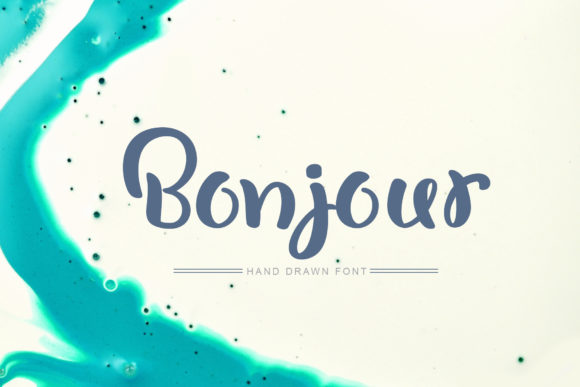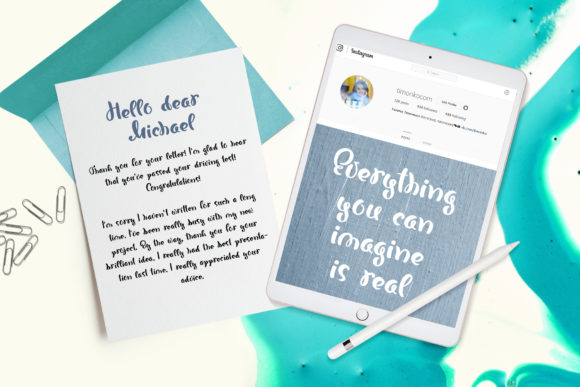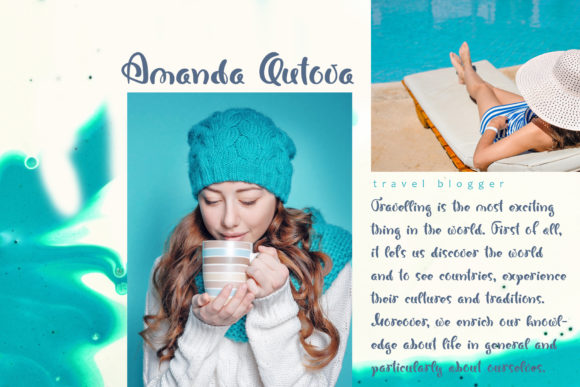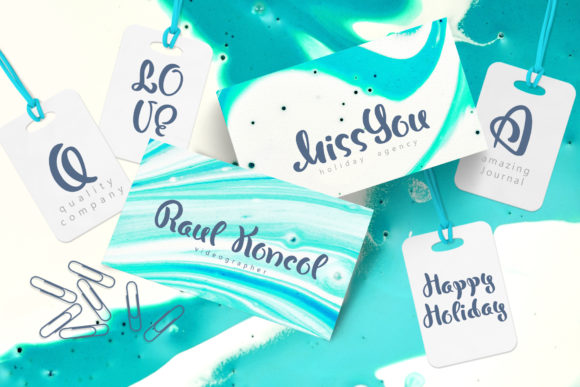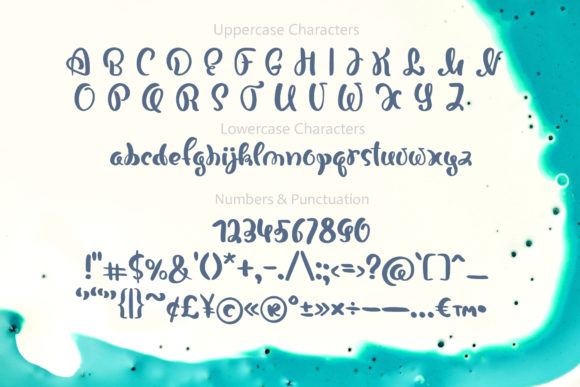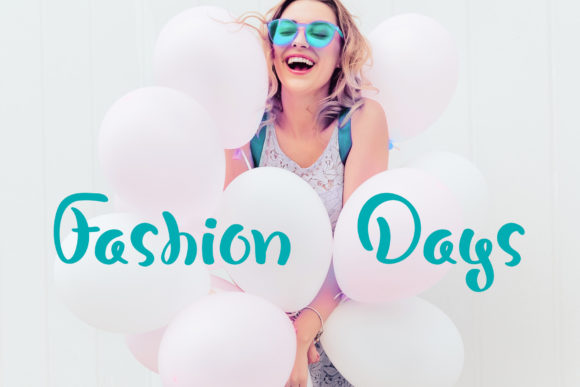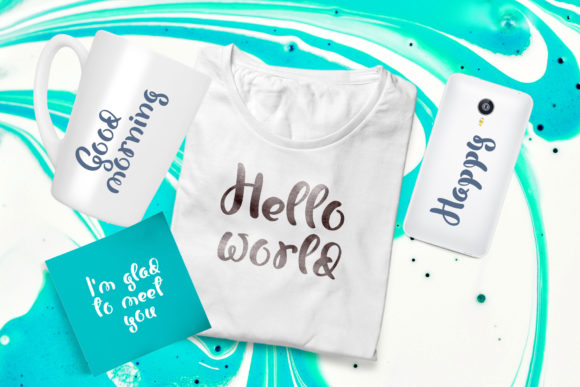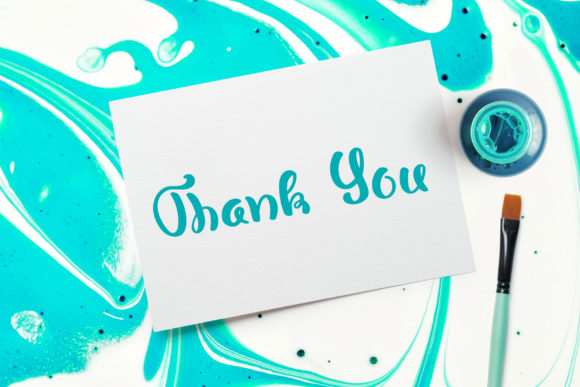
Bonjour Font
About Bonjour Font
Influenced by all things French, Bonjour is a fun and beautiful font. Add a touch of authenticity to any design idea with this amazing script.